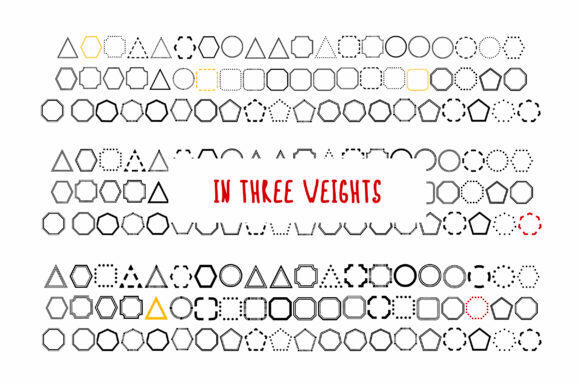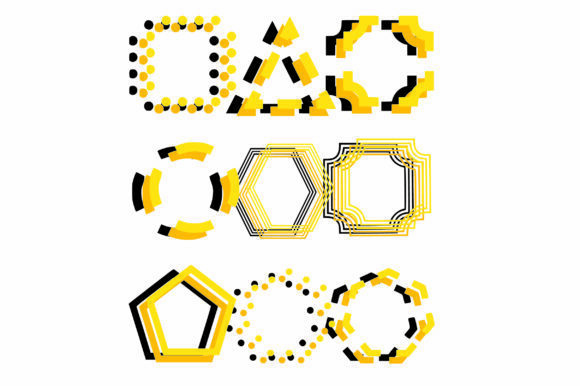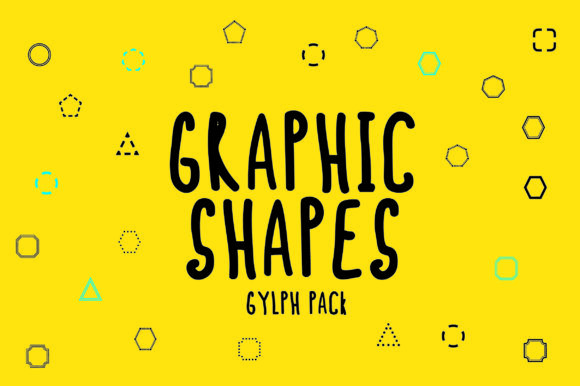
About BM Graphics – Graphic Shapes Glyph Font
Absolutely! Graphic Shapes Glyph is a versatile and creative dingbats font that offers a wide range of unique and eye-catching glyphs. Here are some ideas on how to make the most of this font and create standout designs:
1. Icons and Logos: Utilize the diverse glyphs from Graphic Shapes Glyph to create custom icons and logos. The font’s unique shapes and designs can help you craft visually striking and memorable brand identities.
2. Editorial Design: Incorporate the glyphs into editorial layouts, magazine spreads, or book designs. They can be used as decorative elements, dividers, or attention-grabbing accents to enhance the overall visual appeal and engagement of the content.
3. Social Media Graphics: Add a touch of creativity to your social media posts by using the glyphs to create engaging graphics. Whether it’s for promotions, announcements, or simply to capture attention, the diverse range of shapes in Graphic Shapes Glyph can help you craft visually appealing social media content.
4. Web Design: Use the glyphs to create unique web elements such as buttons, badges, or decorative elements. They can also be employed as bullet points or navigation indicators, bringing a fresh and distinctive look to your website.
5. Packaging Design: Incorporate the glyphs into packaging designs to add personality and visual interest. Whether it’s for food products, cosmetics, or any other consumer goods, Graphic Shapes Glyph can provide an extra layer of creativity and uniqueness to your packaging.
6. Posters and Flyers: Make your event posters and flyers stand out by integrating the eye-catching glyphs. Whether you’re promoting a concert, workshop, or any other type of event, the font’s diverse and captivating shapes can contribute to a visually compelling design.
Remember to experiment with different combinations, sizes, and color schemes to create visually appealing and cohesive designs. Let the unique glyphs of Graphic Shapes Glyph inspire your creativity and take your design projects to the next level!